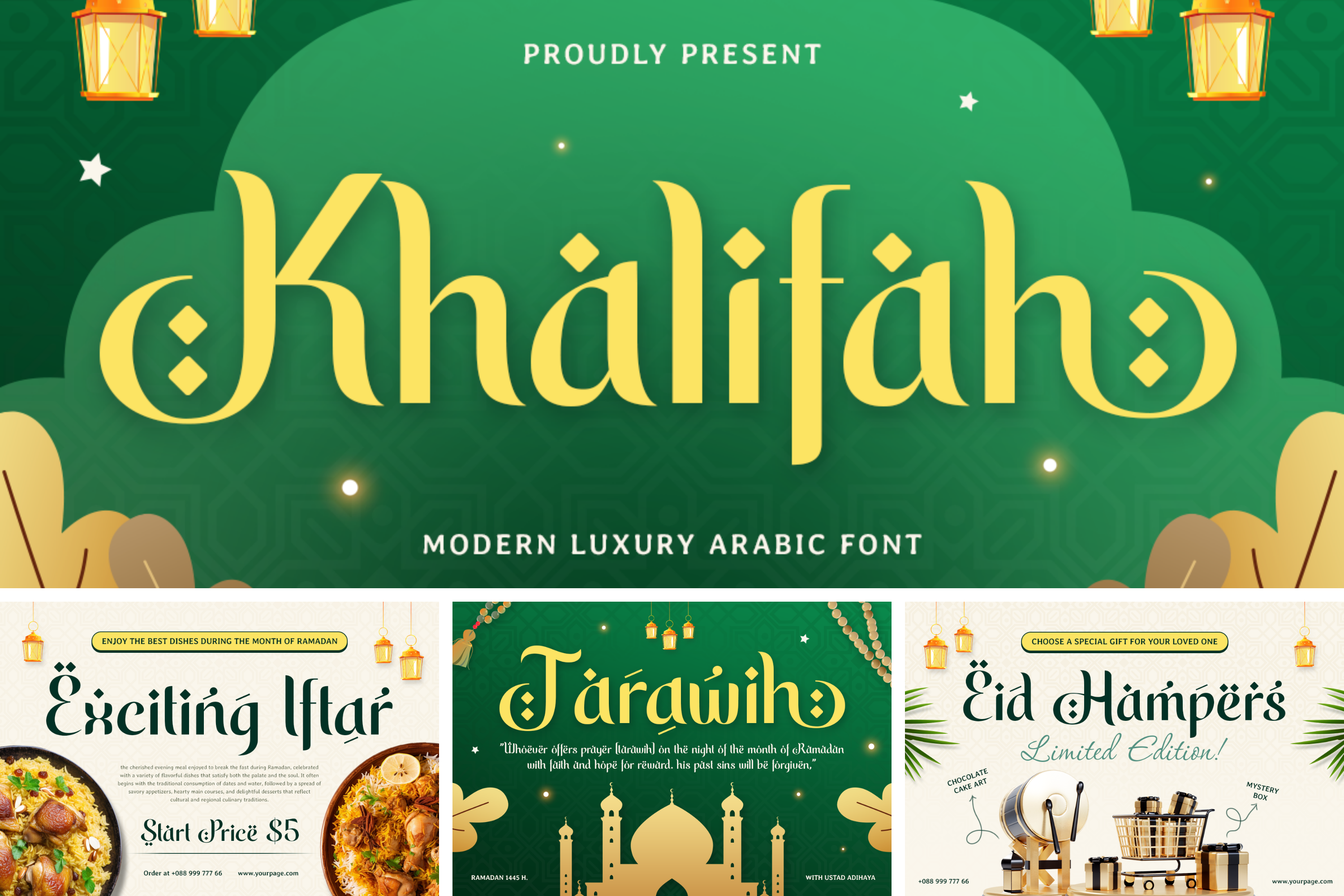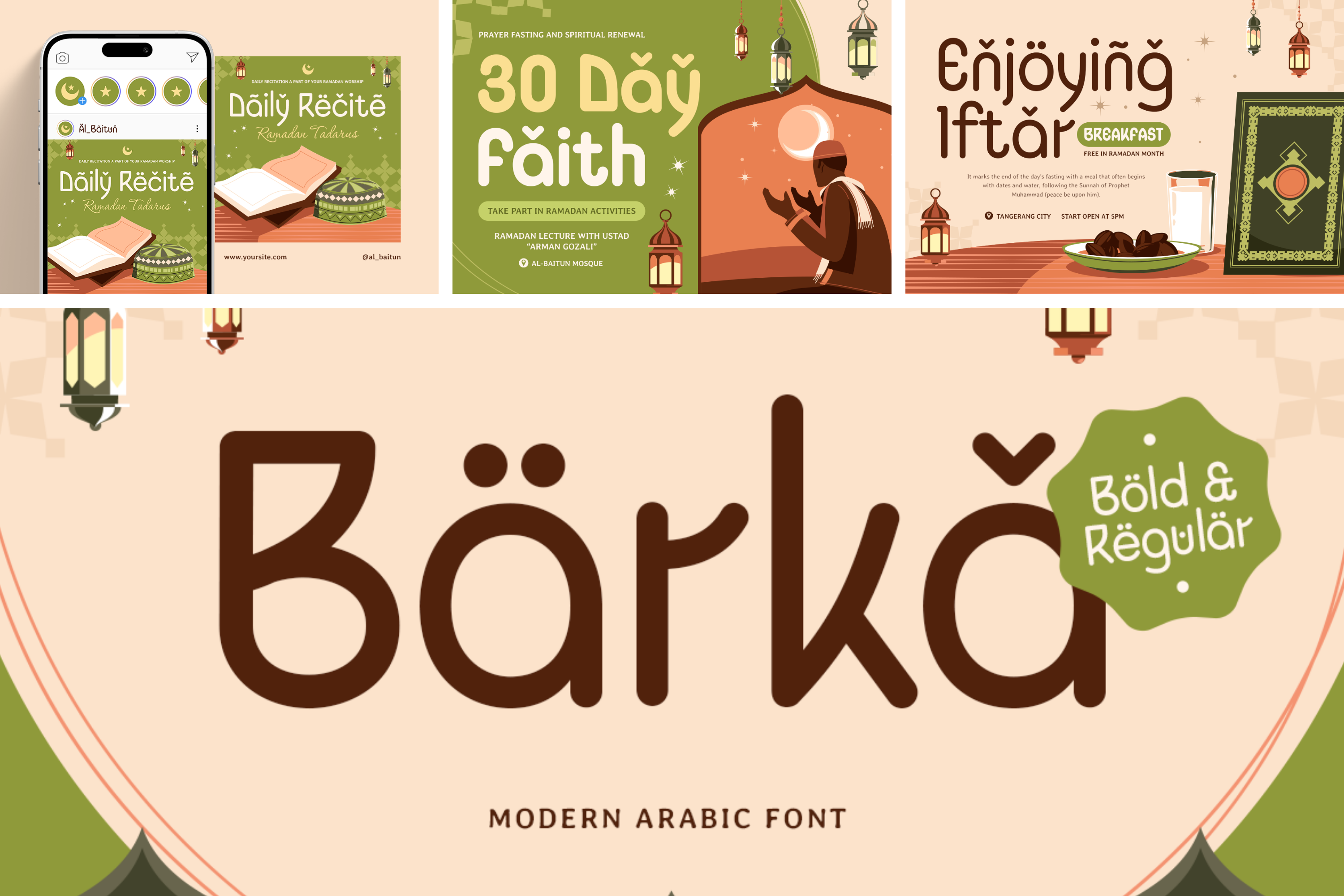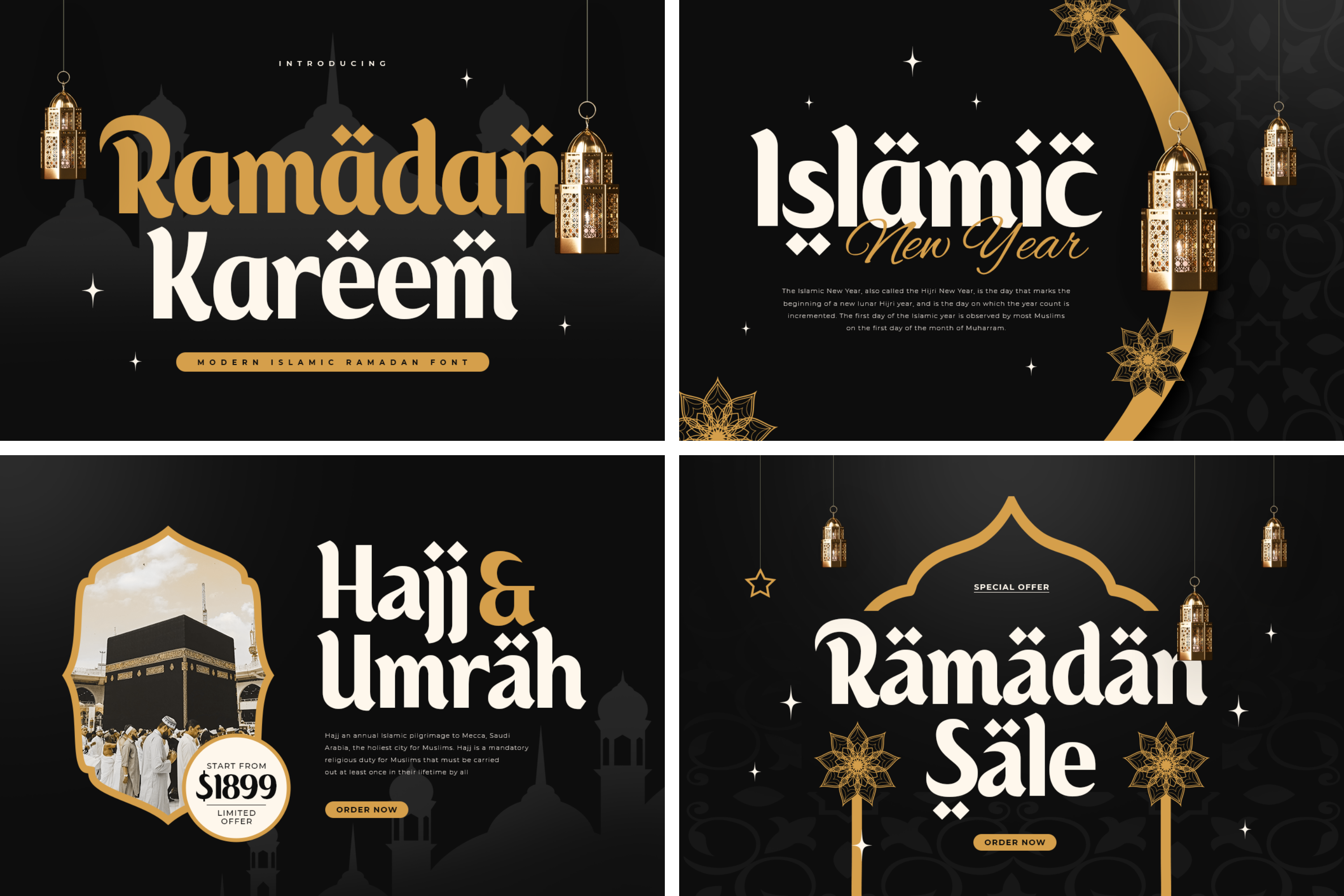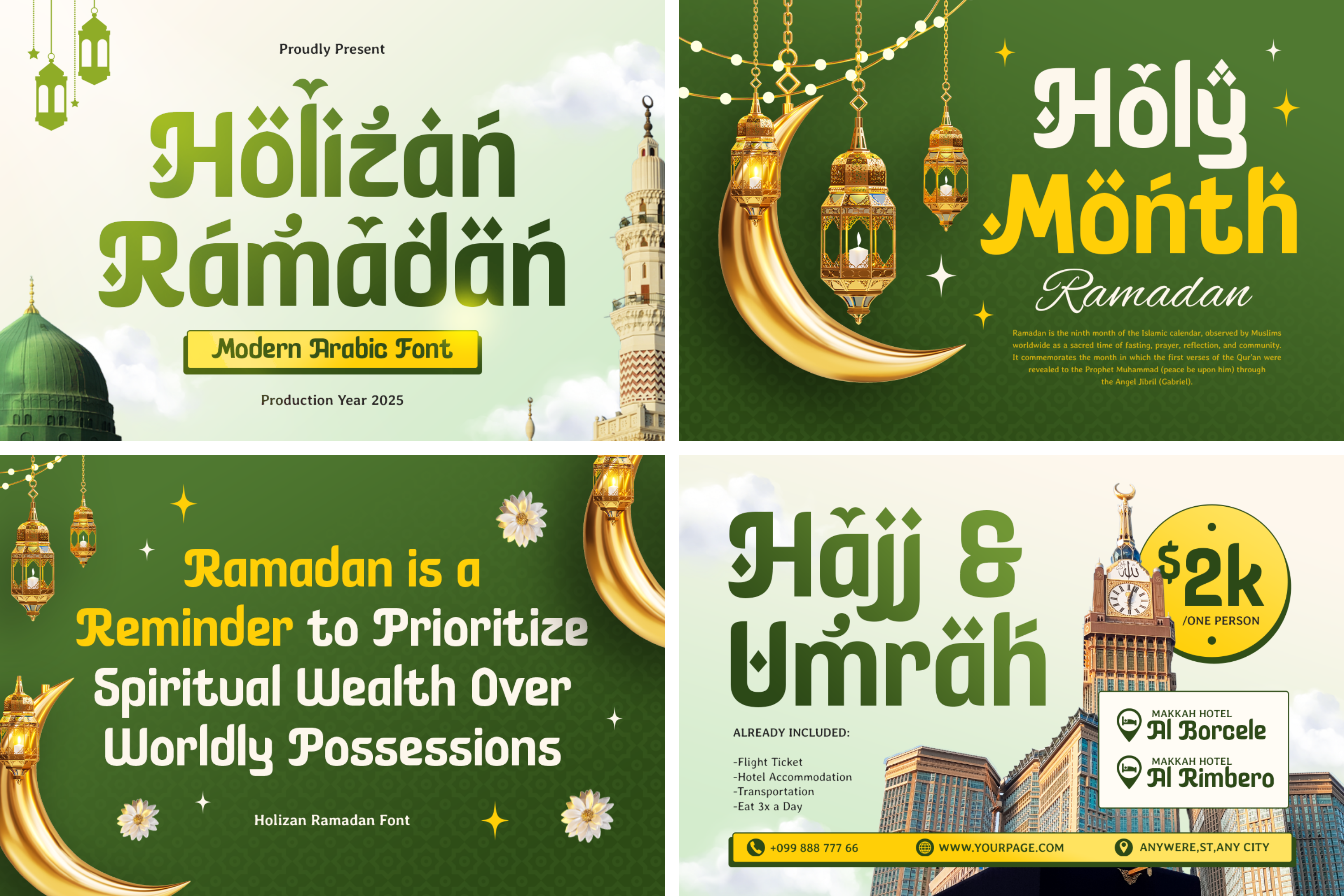
Top 25+ Free Arabic Fonts Every Designer Needs for Ramadan 2025
Discover 25 free Arabic fonts perfect for your Ramadan 2025 designs. Elevate your projects with stunning typography that blends tradition and modernity. Ideal for graphic designers and small business owners.
25+ Free Arabic Fonts That’ll Make Your Ramadan Designs Pop (2025)
Hey, designers! Let’s talk about something we all love—free fonts. If you’ve ever spent hours scrolling through font websites, only to end up frustrated or broke, you’re not alone. I’ve been there, too. Last year, I blew way too much money on Arabic fonts, only to realize later that some of the best ones were completely free. Yep, free. And no, I’m not talking about those clunky, outdated fonts that look like they came straight out of a 1998 Word document. I’m talking about free Arabic fonts that are sleek, professional, and versatile enough to make your Ramadan designs shine.
Whether you’re working on a Ramadan campaign, a restaurant menu, or just trying to impress a client, I’ve got you covered. This list is packed with free fonts for designers that’ll save you time, money, and a whole lot of headaches.
Why Free Fonts Don’t Have to Look Cheap
Let’s be honest: the phrase “you get what you pay for” doesn’t always apply to fonts. Some of the best designs I’ve ever created were made with free fonts. The trick is knowing where to look and what to look for. Here’s what makes a free font worth your time:
Clean design: No weird spacing or missing characters.
Complete character sets: Especially important for Arabic fonts.
Versatility: Works for both digital and print projects.
Finding good free fonts for commercial use is like finding a parking spot at the mall during Ramadan—it takes patience, but it’s totally worth it.
The Ultimate Free Font Collection
Here’s the part you’ve been waiting for: the fonts. These are my go-to picks for free Arabic fonts that don’t look, well, free.
1. Sorga Arabic Ramadan Free Font
Why it’s awesome: It’s clean, modern, and family ready (yes, really).
Best for: Everything from logos to long text.
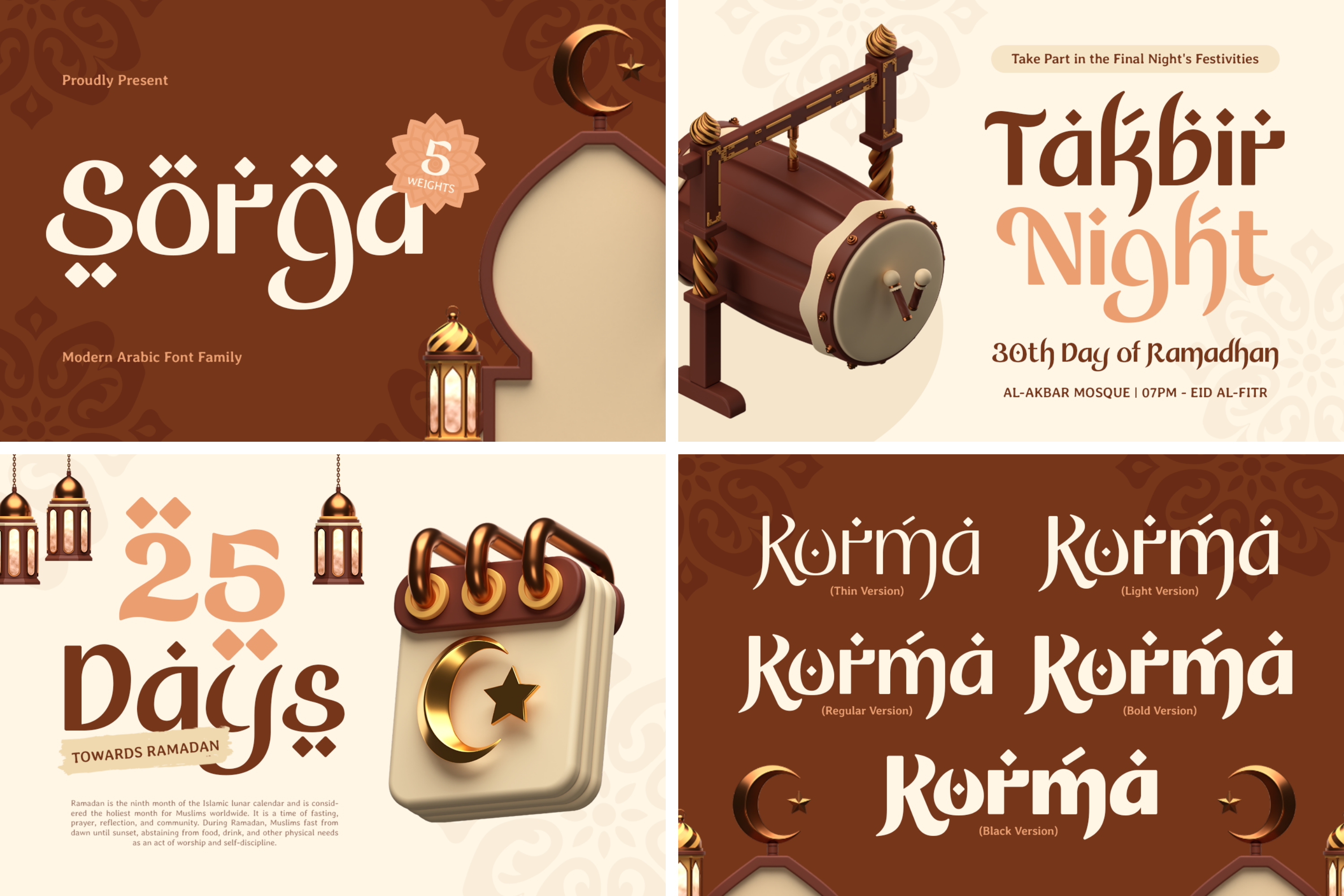
2. Noto Naskh Arabic
Why it rocks: Google made this, so you know it’s good.
Perfect for: Websites, apps, and anything digital.
Real talk: I used this for a restaurant menu, and the client thought I spent $200 on it.
3. Amiri
The vibe: Classic meets modern.
Best for: Long-form text like brochures or newsletters.
Why I love it: It’s like the Swiss Army knife of free fonts for designers—clean, professional, and versatile.
4. Arafah Luxury Arabic Ramadan Free Font
The magic: Luxury meets tradition in every elegant curve.
Perfect for: High-end branding and Ramadan campaigns that need that extra sparkle.
Designer's secret: Use its OpenType features to add that custom, premium feel to any project.
5. Jerusalem Lavish Arabic Ramadan Free Font
The spirit: Where Ramadan's grace meets modern luxury.
Perfect for: Festive greetings, event posters, and spiritual branding that needs to shine.
Insider tip: Let those intricate details breathe in larger sizes for maximum impact.
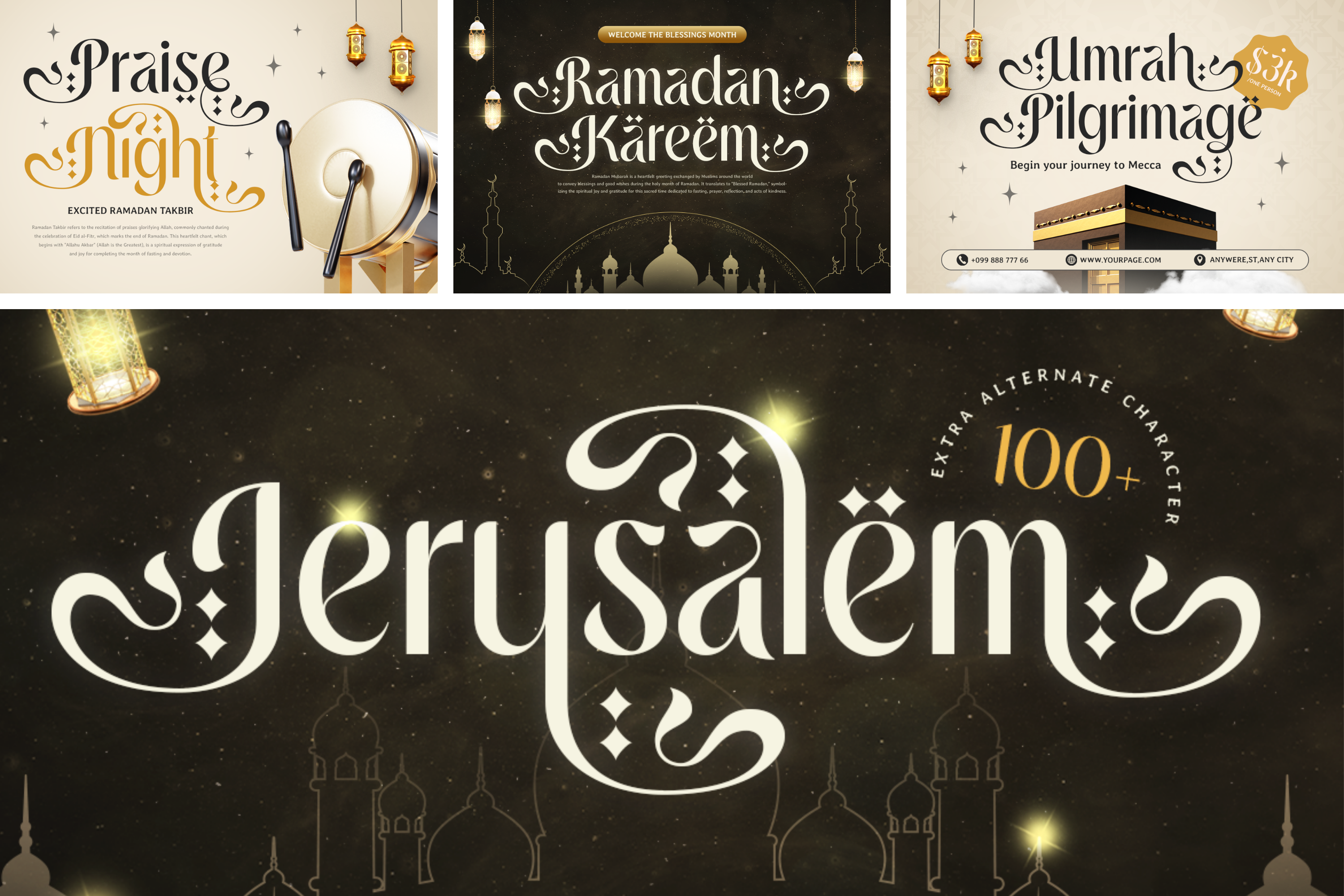
6. Medina Luxury Arabic Ramadan Free Font
The essence: Classic Arabic elegance with a luxurious modern twist.
Made for: High-end branding and cultural projects that demand sophistication.
Style secret: Play with its refined details in packaging design for that premium feel.
Medina Font is Free for Personal Use Font
7. Amazing Arabic Modern Arabic Free Font
The charm: Fluid strokes meet modern flair in perfect harmony.
Shines in: Social media, Ramadan greetings, and versatile branding projects.
Quick win: Mix it with minimalist layouts to let its beautiful forms take center stage.
Amazing Arabic Font is Free for Personal Use Font
8. Riyad Malik Modern Luxury Arabic Ramadan Free Font
The allure: Where luxury meets Arabic heritage in every stroke.
Born for: High-end fashion brands and cultural events that need that royal touch.
Pro move: Pair with gold accents and minimal layouts to amplify its luxe factor.
Riyad Malik Font is Free for Personal Use Font
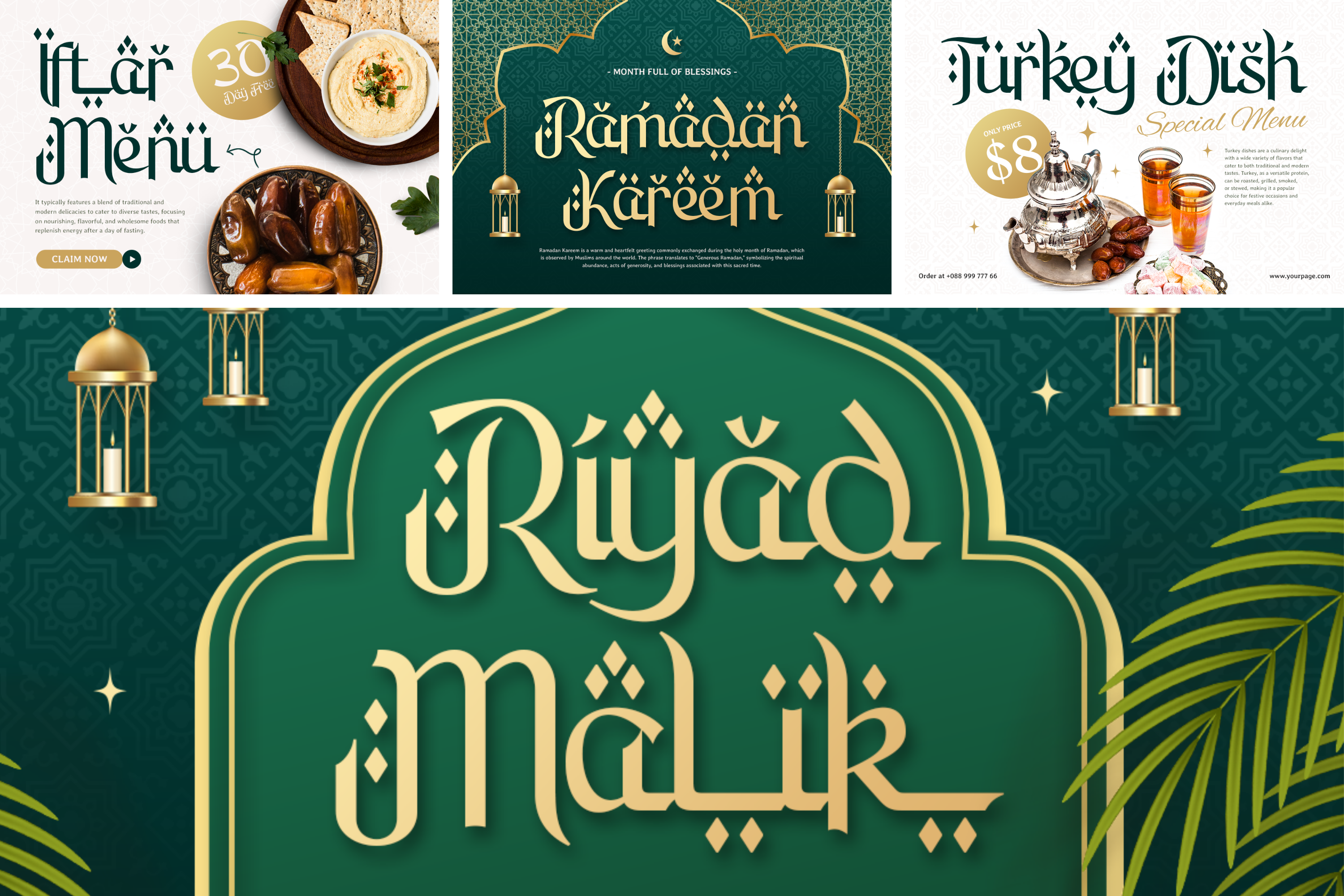
9. Midnight Ramadan Modern Luxury Arabic Free Font
The mood: Captures the serene magic of Ramadan nights with modern flair.
Perfect for: Festive greetings, spiritual branding, and elegant event invitations.
Night tip: Use dark backgrounds to make its sleek lines glow like moonlight.
Midnight Ramadan Font is Free for Personal Use Font
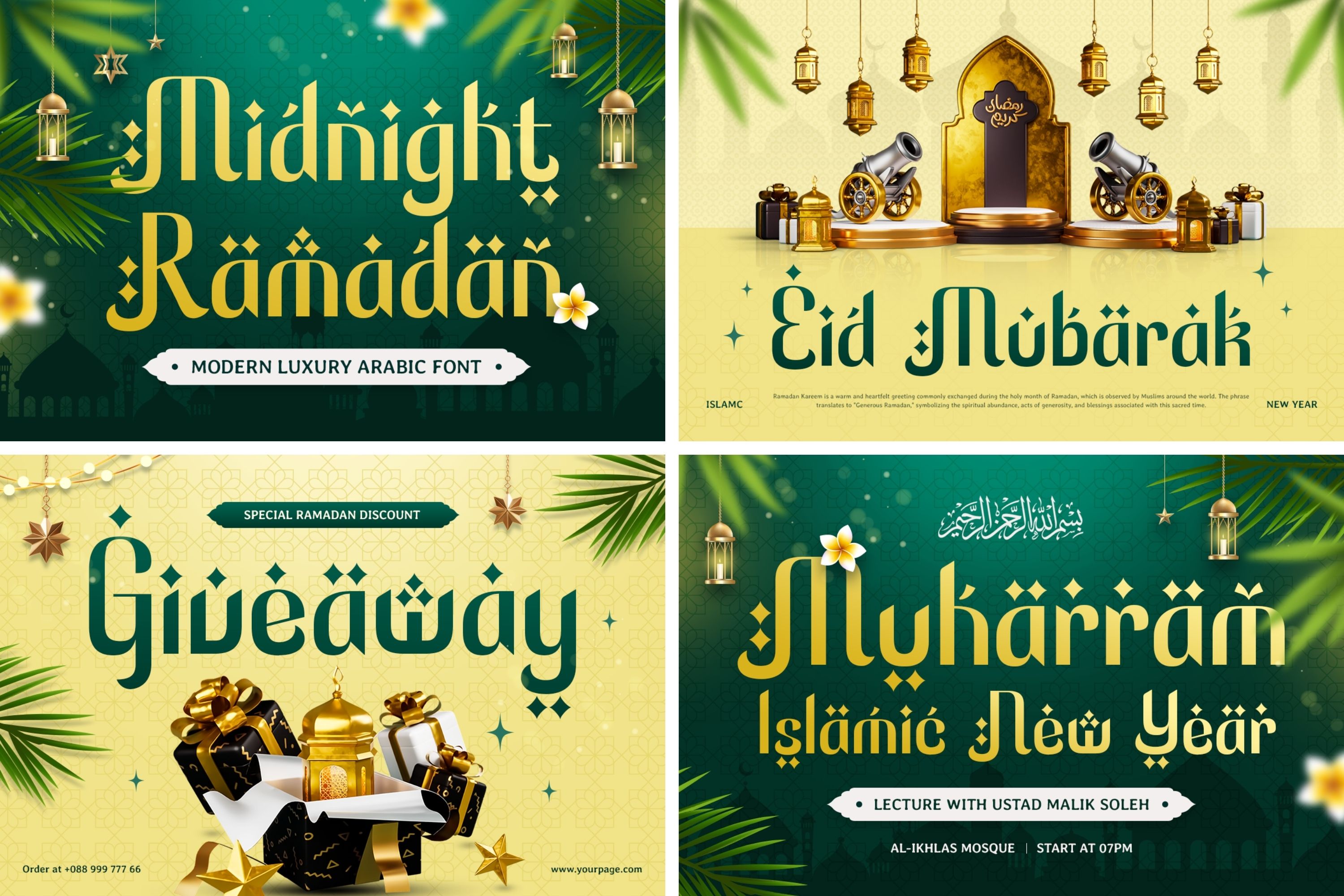
10. Khalifah Modern Luxury Arabic Ramadan Free Font
The royal touch: Flows like silk with the confidence of a king.
Rules at: Luxury logos, high-end packaging, and sophisticated publications.
Test the font before committing to it.
Build your collection gradually—it’s worth the effort.